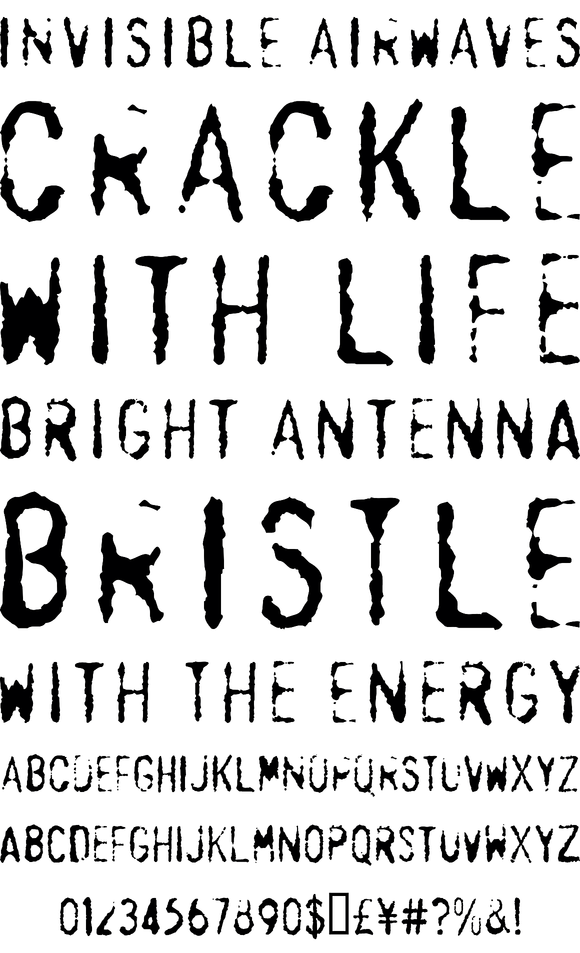
Designs for some of the Total Disorder™ characters were scanned directly from flawed imprints made onto a credit card slip. The family was produced with the idea that it would make a nice companion family for our Disorder™ fonts.
FULL CHARACTER SET
Each font in the Total Disorder™ family has a full character set of 232+ letterforms, with all characters designed in the style of the font.